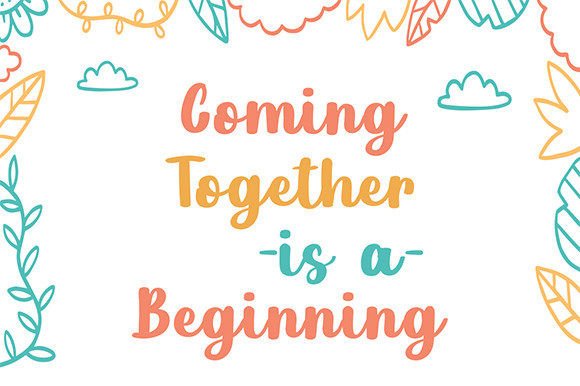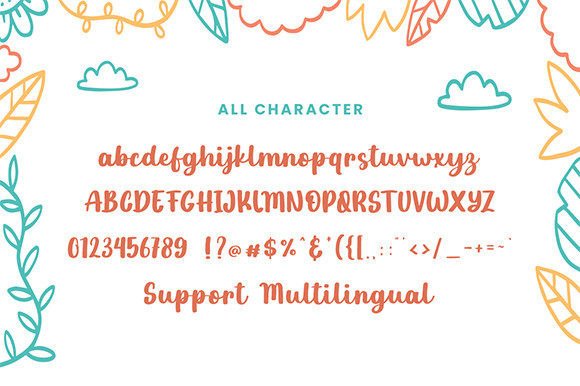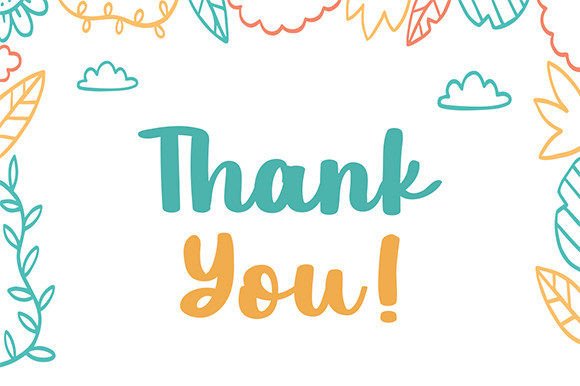
Introduction to Only Believe Font
Only Believe is a delicate, flowing and unique script font.
| 👤 Author | Bluestype Studio |
is PUA encoded which means you can access all of the glyphs and swashes with ease Fall in love with it and bring your projects to the highest levels.
Key Features of Only Believe Font
Why Choose Only Believe Font?
Only Believe Font offers exceptional quality and versatility, making it a valuable addition to your design toolkit. Whether you’re creating for personal projects or commercial use, Only Believe Font delivers professional results.